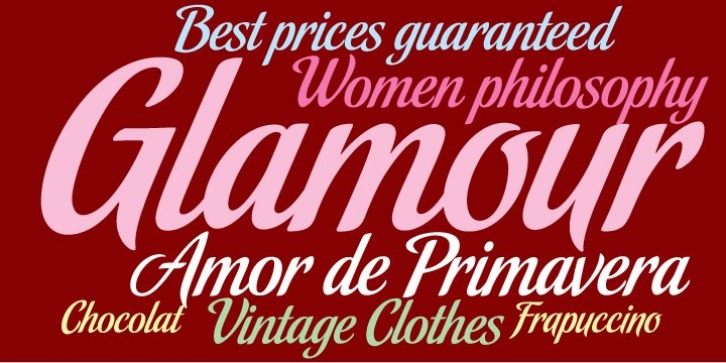
Malbeck downloadDesigner: Alejandro Paul,
Publisher: Sudtipos
Malbeck is a script which is both as elegant as it is unique. Very playful typographic treatments can be produced using the large selection of alternate characters.